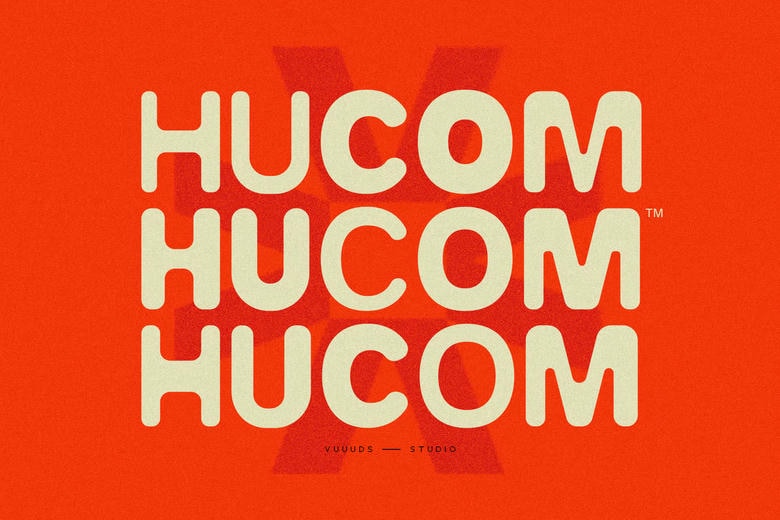
Hucom Font
Hucom is bold sans serif font, every single letters have been uniquely crafted. This font including beautiful alternate glyph. You can access the alternate glyph via Font Book (Mac user) or Windows Character Map (Windows user), I’ve been put the link tutorial inside the zip file.
Hucom Sans Serif Font